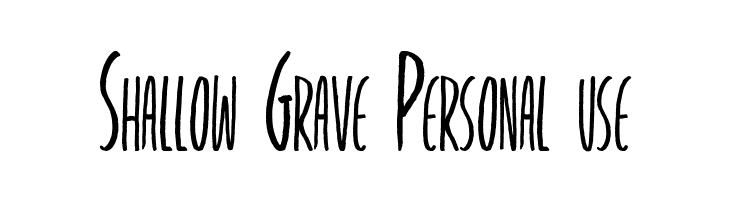
A playful, hand-drawn comic-style font with bold outlines and a shadow effect.
A bold, geometric font with a modern and impactful style.
A lively and flowing script font with elegant, cursive strokes.
An elegant and flowing script font with graceful curves and expressive strokes.
A bold, geometric font with a modern, industrial aesthetic.
A playful, handwritten font with a whimsical and casual style.
A calligraphic font with flowing, elegant strokes and a modern touch.
A bold, calligraphic font with flowing, decorative curves.
A bold, modern serif font with sharp angles and strong vertical emphasis.
A bold, cursive font with a smooth, flowing handwritten style.
A bold, jagged font with a distressed, hand-drawn appearance.
A bold, jagged, and italic font with a distressed, horror-themed style.
A jagged, distressed font with a horror-inspired, hand-drawn look.
A bold, jagged, and distressed italic font with a rugged, edgy style.
A cursive, handwritten-style font with elegant, flowing strokes.
A dynamic, brush-style font with expressive, energetic strokes.
A geometric, rune-like font with angular lines and diamond accents.
A bold, geometric font with a modern, industrial style.
Playful handwritten script font.
A playful, hand-drawn font with textured strokes and a whimsical style.